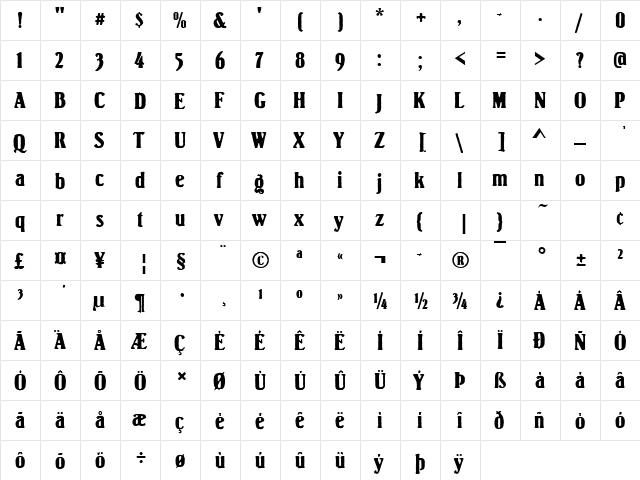
SpringfieldAntD Regular
Design Context for SpringfieldAntD Typeface
SpringfieldAntD offers clean, dependable letterforms without strong stylistic allegiance, making it a practical choice for designers who need flexibility.
Pro Tip: Use SpringfieldAntD in both headline and body roles to test its range before committing to a single application.